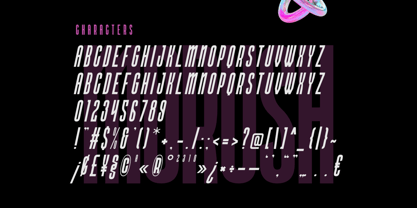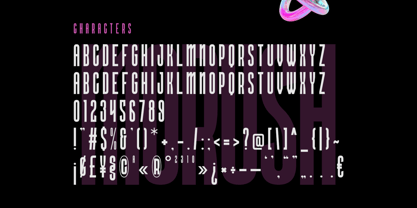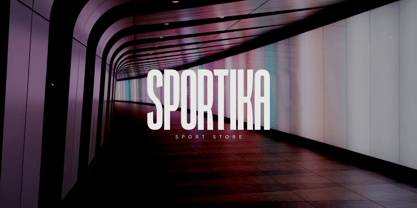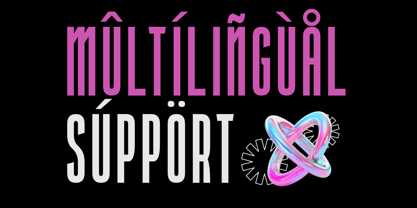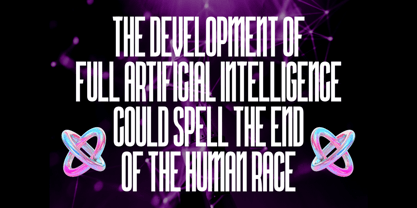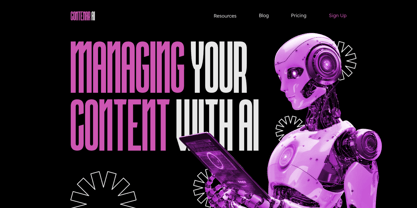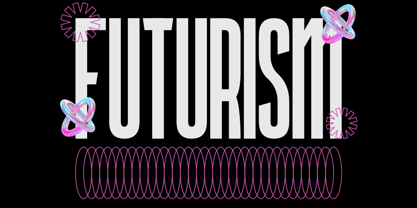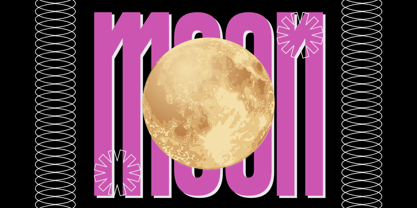
Morush
The Morush Font Family was designed by Dani Irawan and published by GraphTypika. Morush contains 2 styles and family package options. More about this family
Introducing Morush
Morush is a striking modern condensed display sans serif font crafted to command attention in headers, titles, and headings. With its sleek, narrow silhouette and sharp geometric lines, it exudes a futuristic, tech-driven vibe—perfect for AI-themed projects, cyberpunk aesthetics, or cutting-edge design work. The font’s condensed structure maximizes impact in tight spaces, while its minimalist yet bold character set balances edgy innovation with readability.
Ideal for branding, gaming interfaces, or editorial layouts, Morush delivers a dynamic, forward-thinking edge to any visual narrative.